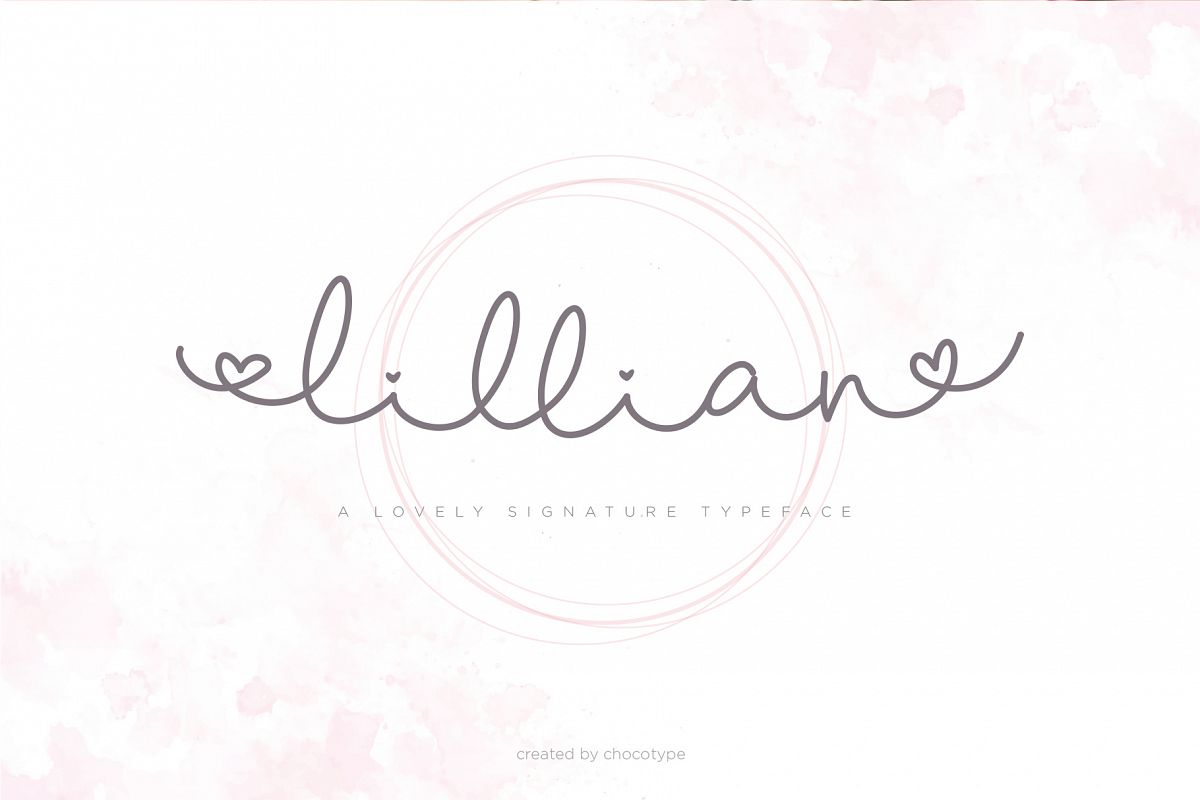
Lillian
Introducing Lillian!
Lillian is a lovable script witk bouncy swashes :)
Lillian Script has a large variety of alternate characters ,allowing you to make each word look completely unique to the next!
Ligatures are also included. It has multilingual support with accented characters for international users.